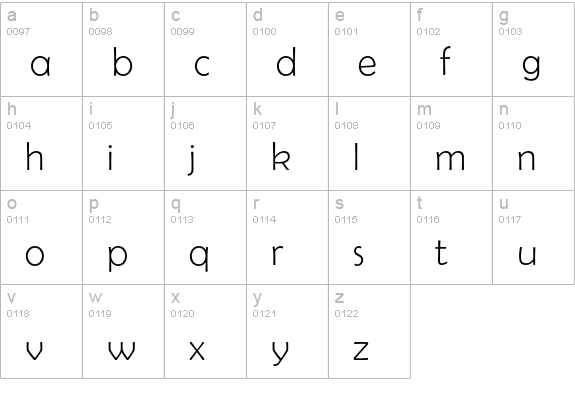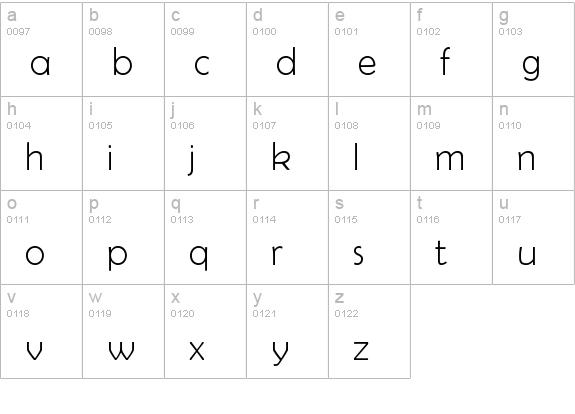
Berlinsans-Light is a refined, elegant variant in the Berlinsans typeface family \xE2\x80\x94 well suited to elegant body text, refined sub-headings, and luxury branding.
Berlinsans-Light is a sleek and modern sans-serif font that exudes sophistication and simplicity. With its clean lines and balanced proportions, this typeface is perfect for a wide range of design projects, from branding to editorial design. The light weight of Berlinsans-Light adds a touch of elegance to any text, making it ideal for conveying a sense of refinement and professionalism. One of the best things about Berlinsans-Light is that it is completely free to download. You can easily access this beautiful font at FontsMarket.com and enhance your design projects with its versatile and stylish appearance. Whether you are working on a website, a poster, or a logo, Berlinsans-Light is sure to elevate your design and leave a lasting impression on your audience. Download this amazing font today and see the difference it can make in your creative endeavors.